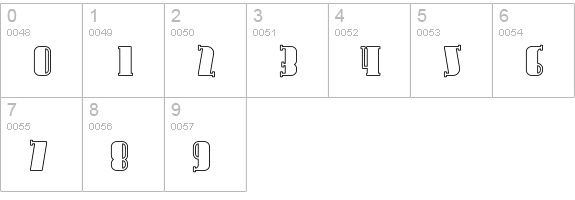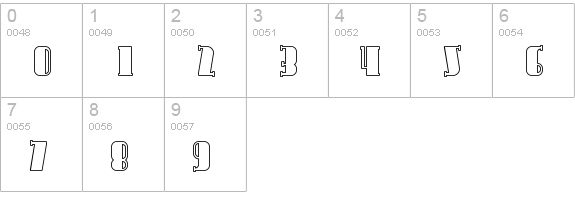
Avondale SC Outline font is a modern and stylish typeface perfect for adding a touch of elegance to your designs. With its clean lines and sleek appearance, this font is versatile and can be used for a variety of projects. The outline style adds a contemporary feel while still maintaining a classic look. What makes Avondale SC Outline font even better is that it is available for free download at FontsMarket.com. This means you can easily access this beautiful font and use it for both personal and commercial projects without any cost. Whether you're designing a logo, creating invitations, or working on a branding project, Avondale SC Outline font is sure to make your text stand out. Don't miss out on the opportunity to enhance your designs with this stunning font. Download Avondale SC Outline today and elevate your typography game to the next level.